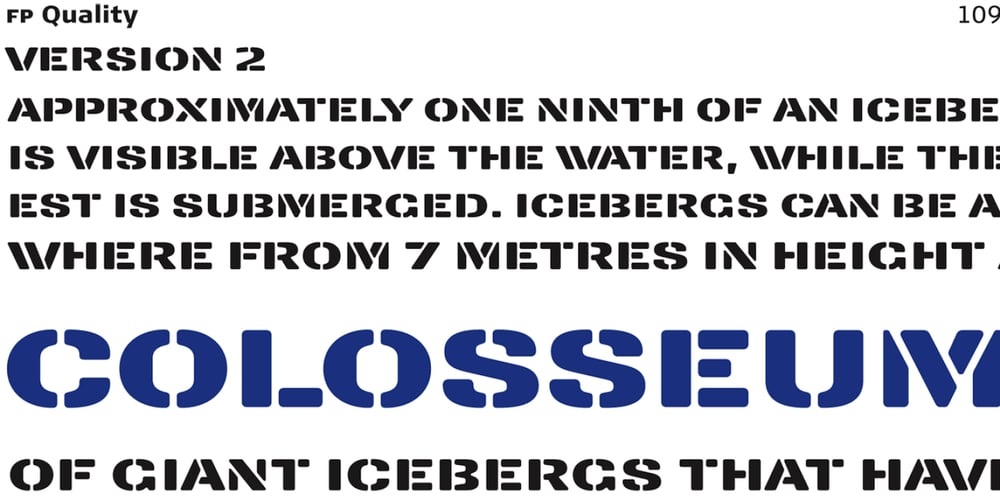
FP Quality Font Family was designed by Ole Berntsen Søndergaard and published by Fontpartners. FP Quality contains 2 styles and family package options. FP Quality is a extended stencil typeface with a slightly and rounded outline and classic shapes. The font contains only Uppercase, and is available in two versions.